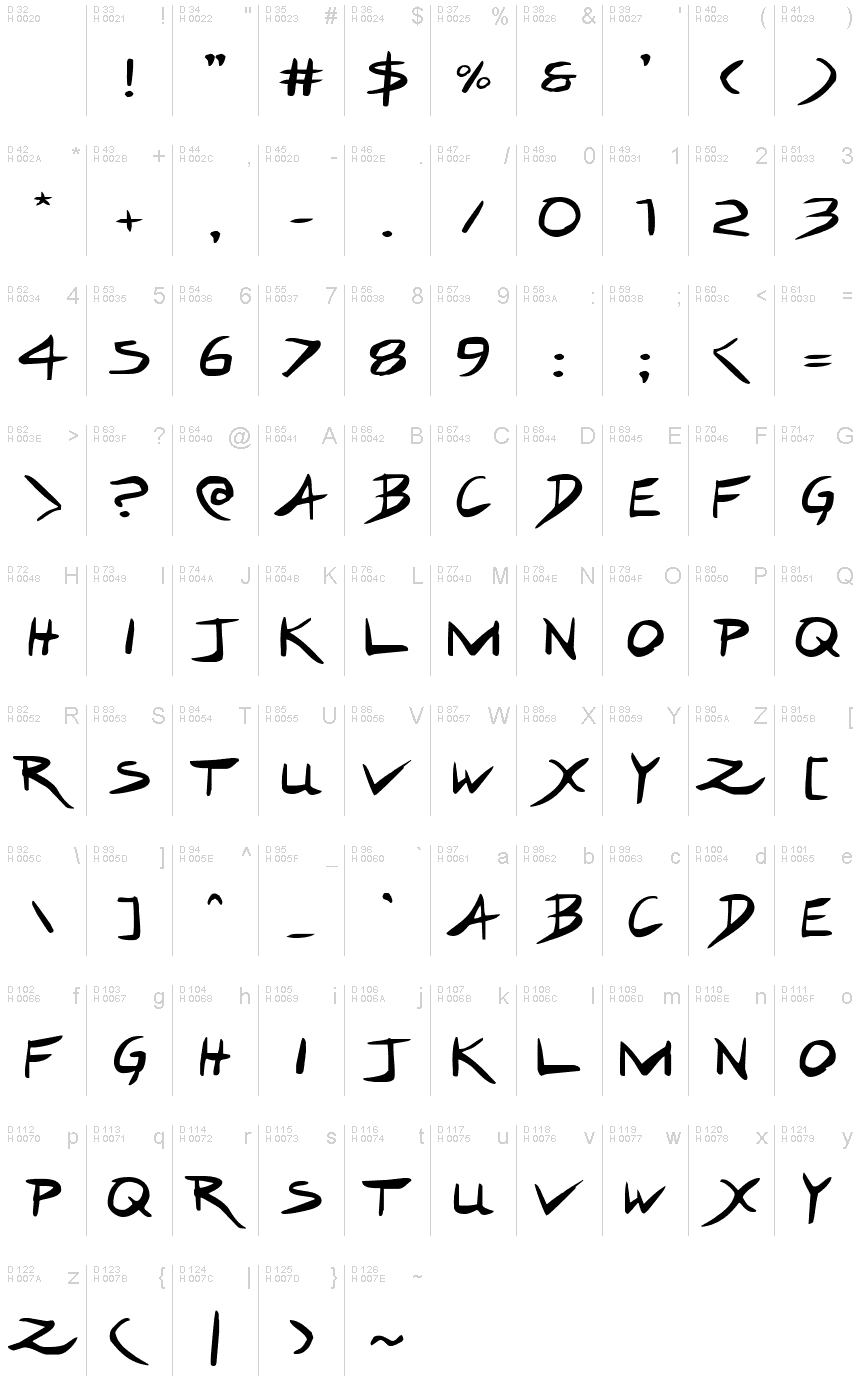
Hakturus Expanded
Hakturus Expanded, a captivating brush font by Iconian Fonts, adds a touch of expressive flair to any project. With its expanded width, this font exudes confidence and boldness. Perfect for crafting eye-catching social media graphics or designing striking logos, Hakturus Expanded effortlessly conveys creativity and originality. Whether you're working on an edgy fashion campaign or an adventurous travel blog, this unique typeface will make your content stand out from the crowd. Let Hakturus Expanded unleash your imagination and elevate your designs to new heights.